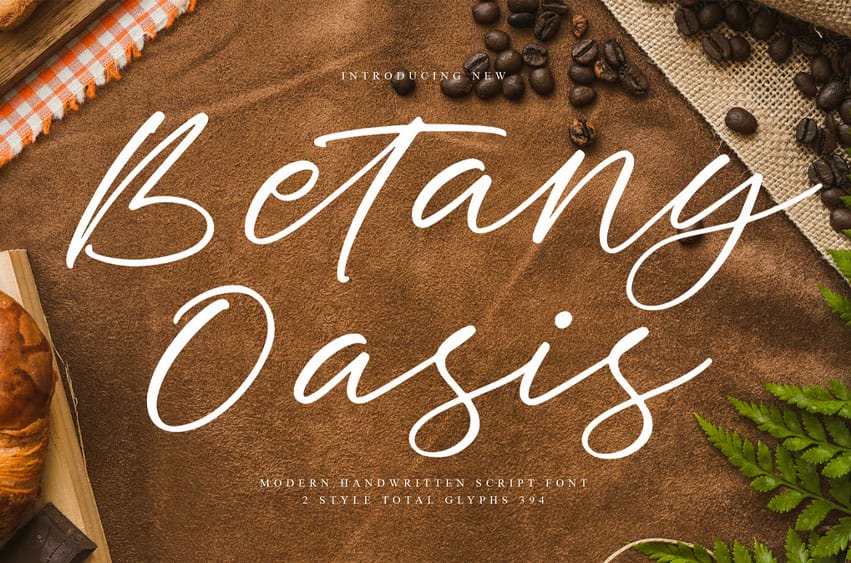
Betany Oasis Font sweeps in like a refreshing breeze, ready to transform every design with a burst of personality and spontaneity. This font’s modern handwritten script is packed with lively character—each letter practically jumps off the page, eager to charm and engage your audience. With its playful curves and artistic accents, Betany Oasis is tailor-made for projects that crave originality—from bold branding and standout invitations to digital content that demands attention.
Why Betany Oasis Stands Out:
*Bold, Expressive Lettering: Every character in Betany Oasis pulses with energy, blending a relaxed vibe with a touch of professional polish.
*Endlessly Adaptable: Whether you’re whipping up a striking logo, a vibrant event poster, or social media graphics that stop the scroll, Betany Oasis delivers a style that’s both memorable and versatile.
*Crystal-Clear, Yet Unmistakably Artistic: The modern handwritten look is lively and expressive, but never at the expense of readability, even in lengthy passages.
*A Full Suite of Creative Options: Betany Oasis comes loaded with a complete set of letters, numbers, symbols, and stylish alternates, making it perfect for multilingual projects and creative typography.
*Heartfelt and Authentic: Designed to foster emotional connections, Betany Oasis adds a warm, personal touch that makes every word feel genuine and inviting.
Unleash the power of Betany Oasis as your go-to design companion! Let your creations radiate freshness, emotion, and creative spark. Go ahead—embrace Betany Oasis and make every word you write unforgettable.